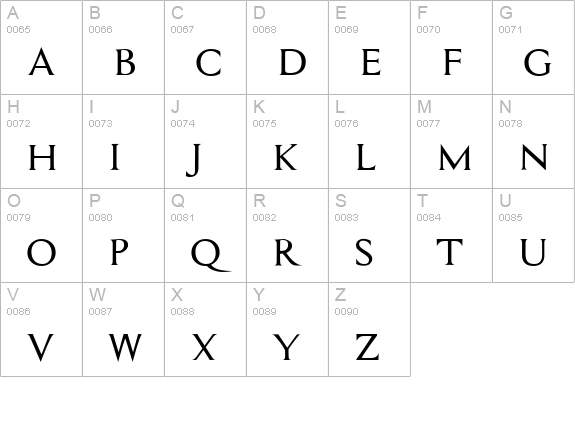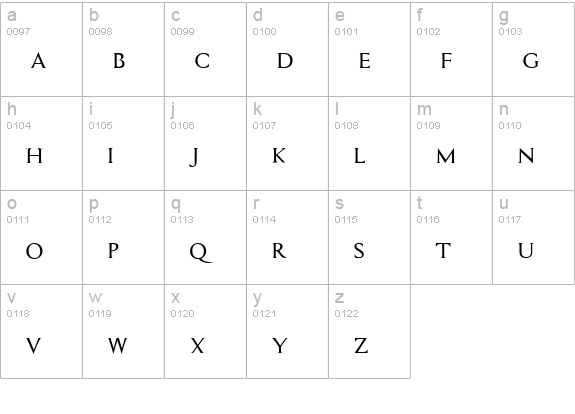
Assassin$ Font Details
Assassin$ font is a sleek and stylish typeface that exudes a sense of mystery and intrigue. With its sharp edges and bold lines, this font is perfect for creating eye-catching designs that demand attention. What sets Assassin$ font apart from other fonts is that it is completely free. Yes, you read that right – you can download this incredible font without spending a dime. It is freely available to download at FontsMarket.com, the go-to website for font enthusiasts. Whether you're designing a poster, a logo, or a website, Assassin$ font will add a touch of sophistication and edginess to your project. Its versatility allows it to be used in a variety of settings, from corporate presentations to artistic endeavors. The characters in Assassin$ font are meticulously designed, with each letter flowing seamlessly into the next. The font's unique style makes it stand out from the crowd, ensuring that your designs will leave a lasting impression on your audience. With Assassin$ font, you have the freedom to express your creativity without any limitations. Its free availability means that you can experiment and explore different design possibilities without breaking the bank. So, what are you waiting for? Head over to FontsMarket.com and download Assassin$ font today. Let your imagination run wild and create stunning designs that will captivate and inspire.